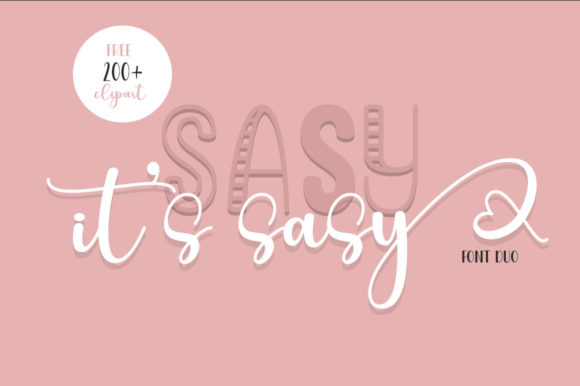
**Introducing It's Sassy Duo Font - The Ultimate Duo for Modern Websites**
Unleash your creativity and transform your digital presence with It's Sassy, the duo font that's taking the design world by storm. This captivating font family, brought to you by Fillo Graphic, will add a touch of charm and sophistication to your modern websites, leaving an unforgettable impression on your visitors.
Step into a world of elegance and charm, where your words come alive with the enchanting curves and graceful strokes of It's Sassy. This script font will captivate your audience, drawing them into your content like never before. Let your messages flow effortlessly, leaving a trail of beauty and inspiration in their wake.
**A Timeless Treasure for Your Design Arsenal**
With It's Sassy, versatility knows no bounds. Whether you're designing logos, branding materials, website headers, social media graphics, or any other digital masterpiece, this font will enhance your creations with its timeless appeal. Its seamless blend of tradition and modernity makes it an essential tool for any designer seeking to make a lasting impact.
**Effortless Elegance with PUA Encoding**
Experience the joy of effortless creativity with It's Sassy's convenient PUA encoding. This innovative feature allows you to access all the glyphs and swashes with remarkable ease, unlocking a world of limitless possibilities. Unleash your imagination and let your designs soar to new heights, creating stunning visuals that will leave your audience breathless.
**A Duo that Inspires and Empowers**
It's Sassy is not just a font; it's a gateway to endless creative possibilities. Together or separately, the script and display fonts in this duo will enrich your font library beyond measure. Open up a world of design opportunities, where your ideas take center stage and your creations shine brighter than ever before.
**Seize the Moment and Transform Your Designs**
Don't miss this opportunity to elevate your design game with It's Sassy. Embrace the power of this exceptional font duo and let your creativity flourish. With its blend of beauty, versatility, and PUA encoded convenience, It's Sassy is the key to unlocking your true design potential.